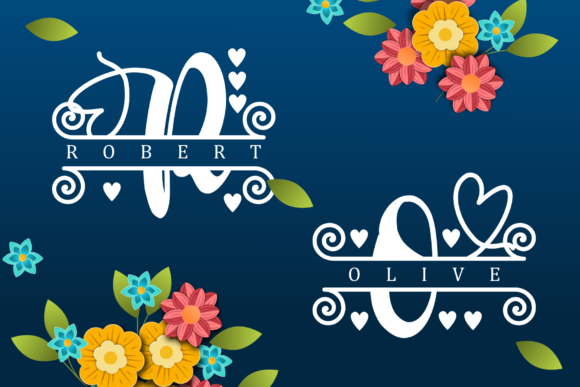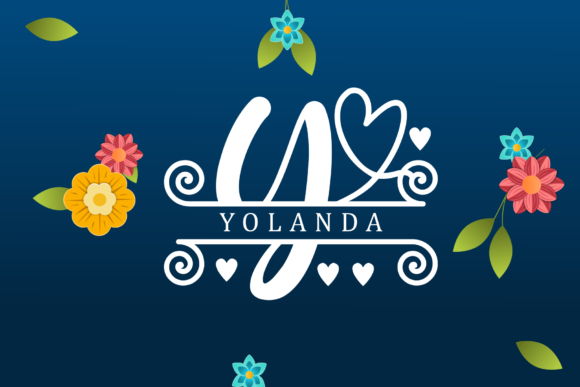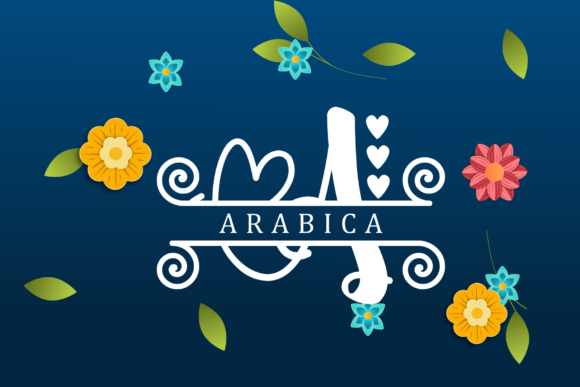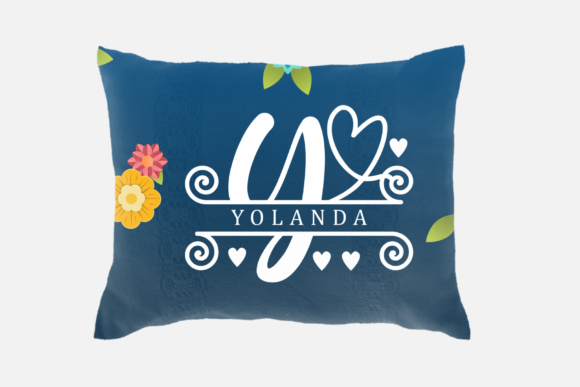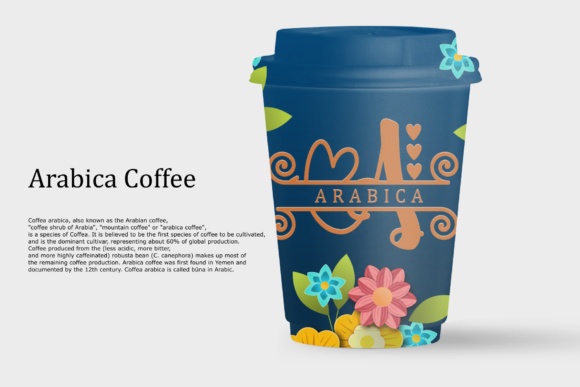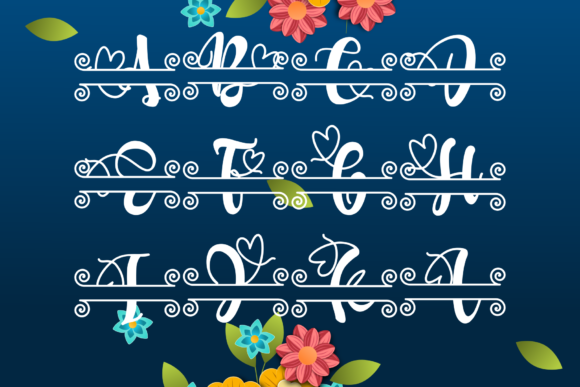
Introduction to New Monogram Font
Imagine you’re brainstorming ideas for a wedding invitation, and suddenly, the perfect font pops into your head. It’s elegant, sophisticated, and screams ‘love.’ You envision the beautifully crafted design, with delicate curves and ornate details, making it a true masterpiece. This is what the New Monogram Font can bring to your creative project – a touch of high-quality elegance that elevates any design.
As a designer, you know the value of having a reliable design resource at your fingertips. The New Monogram Font is more than just a decorative font; it’s a versatile tool that can be used across various mediums, from social media posts to beautiful stationery art. With its transparent background, you can easily layer it over any design element, creating a stunning visual effect.
Key Features of New Monogram Font
- Unique monogram design with intricate details and elegant style
- Perfect for wedding invitations, branding, and other special occasions where a touch of sophistication is required
Honest Review: New Monogram Font
I recently came across the New Monogram Font and was excited to give it a try in my latest design project. As a designer, I’m always on the lookout for high-quality design resources to help me stand out and bring my creative ideas to life.
What works well about this font is its versatility. I was able to use it for a variety of different designs, from logos to social media graphics. The transparent background feature also made it easy to layer my design elements and achieve the desired look.
- ✨ High-quality design that’s perfect for a creative project
- ✨ Transparent background for easy layering and design flexibility
However, I did notice a few limitations. The font can be a bit difficult to read at smaller font sizes, and the character set is somewhat limited.
- ⚠️ Limited character set may not be suitable for complex designs
- ⚠️ Difficult to read at smaller font sizes may require additional styling
Overall, I would say that the New Monogram Font is a great addition to any designer’s toolkit. While it has some limitations, its high-quality design and versatility make it a valuable resource for any creative project.
How to Use New Monogram Font
The New Monogram Font is a high-quality design resource ideal for creative projects. This font features a transparent background, making it easy to use in various design applications.
The New Monogram Font is ideal for designing:
- Branding materials, such as logos and business cards
- Event banners and promotional materials
To get the most out of the New Monogram Font, experiment with different font sizes, colors, and combinations to create unique and eye-catching designs.